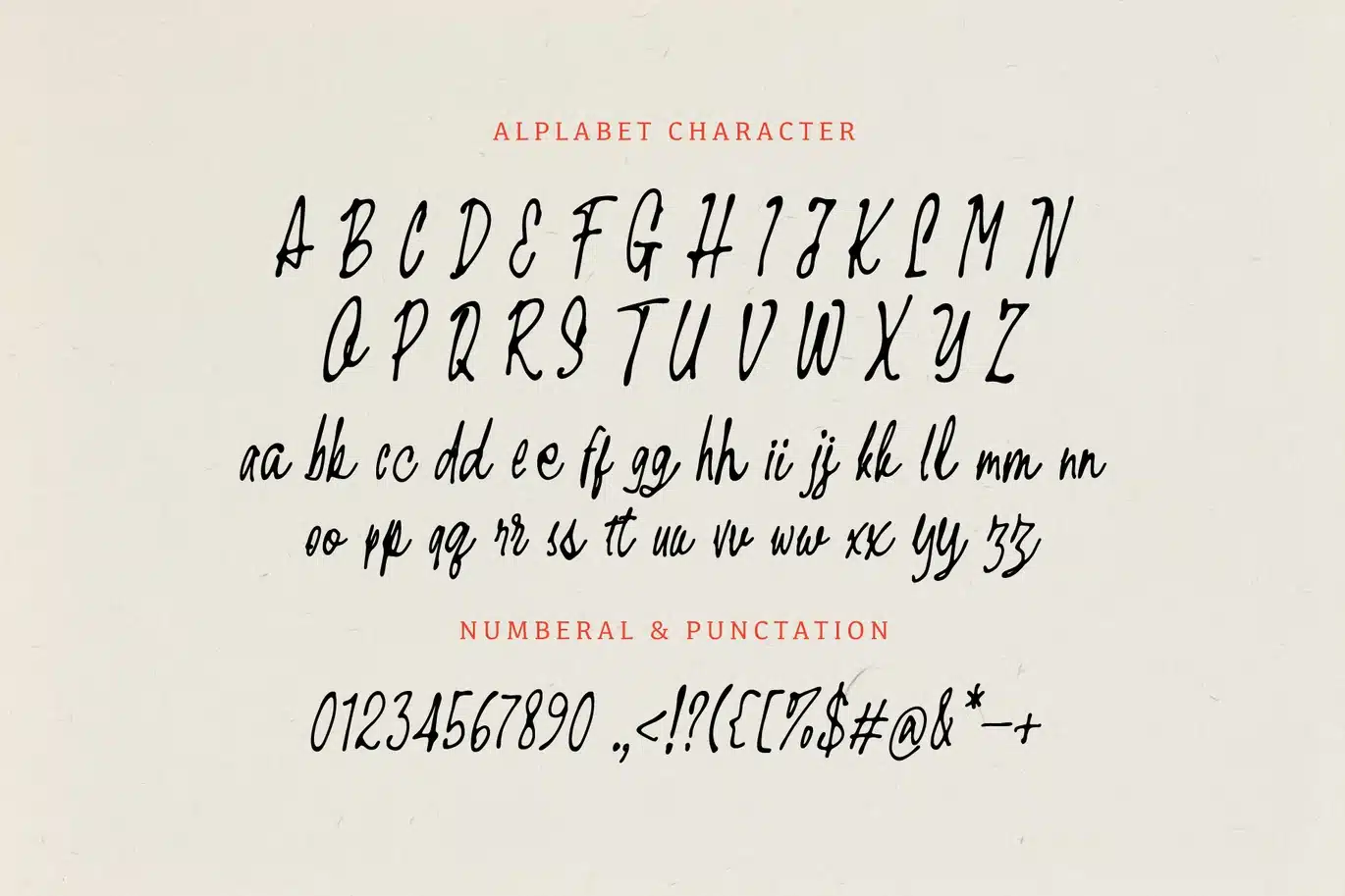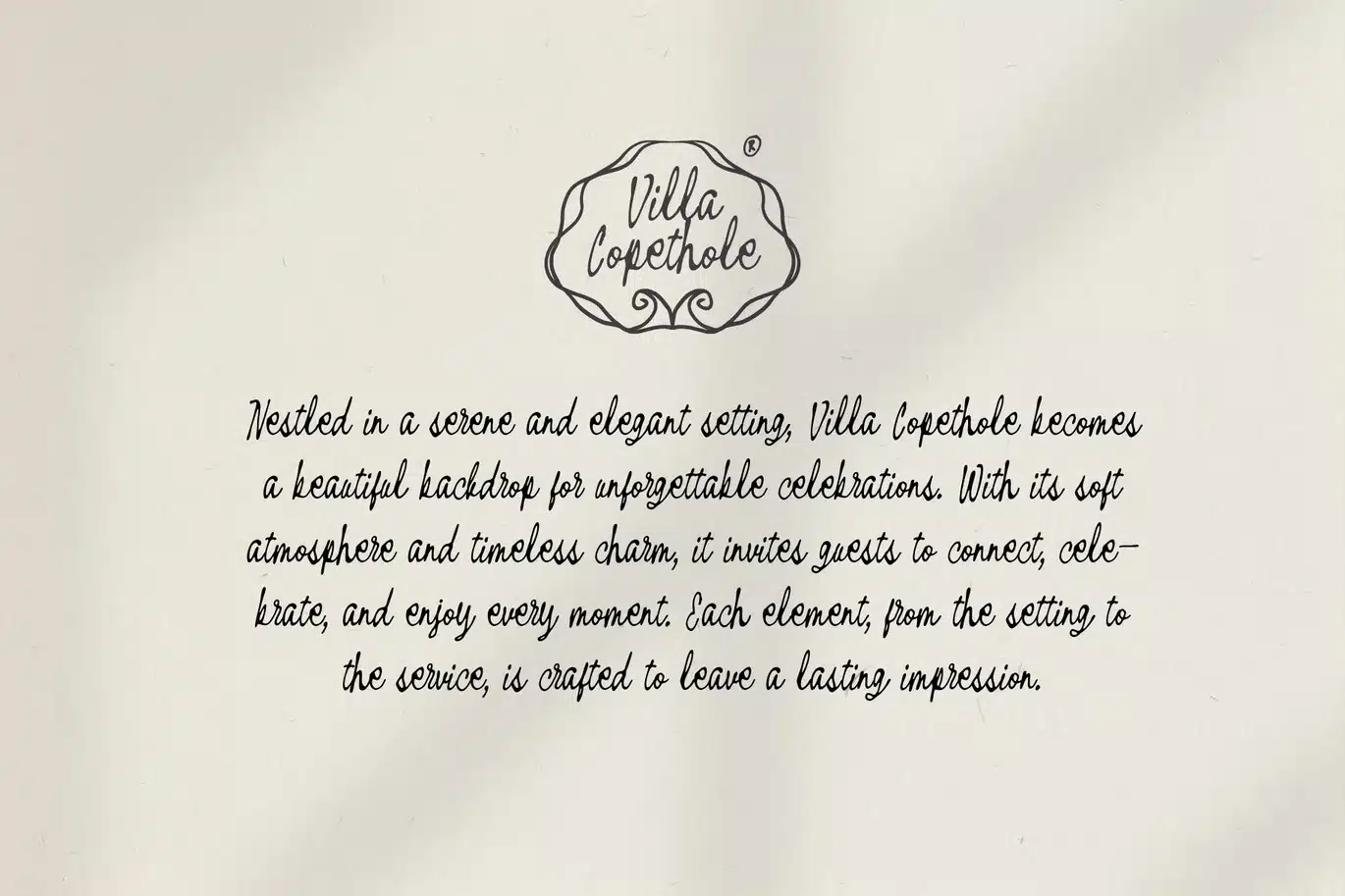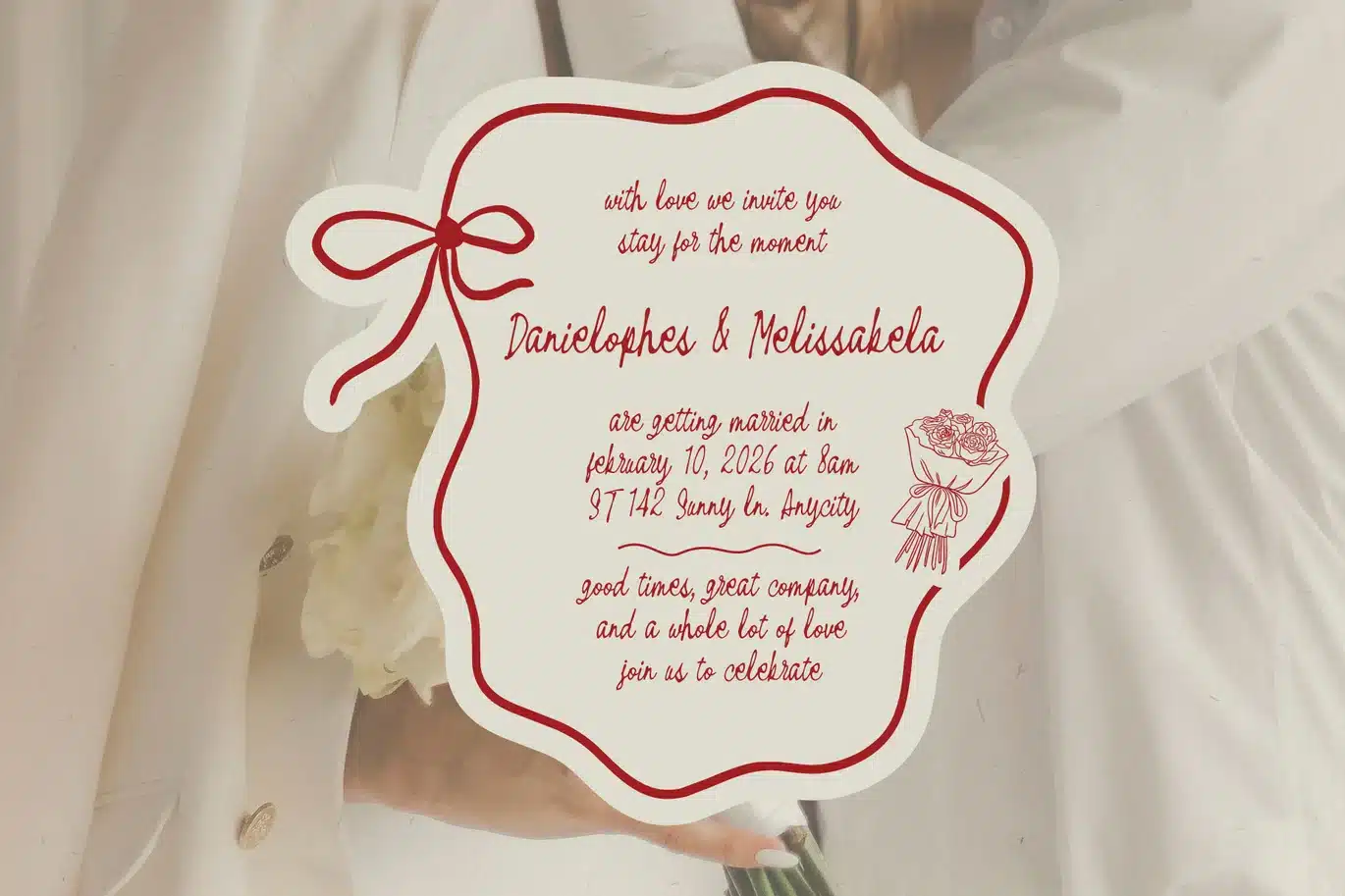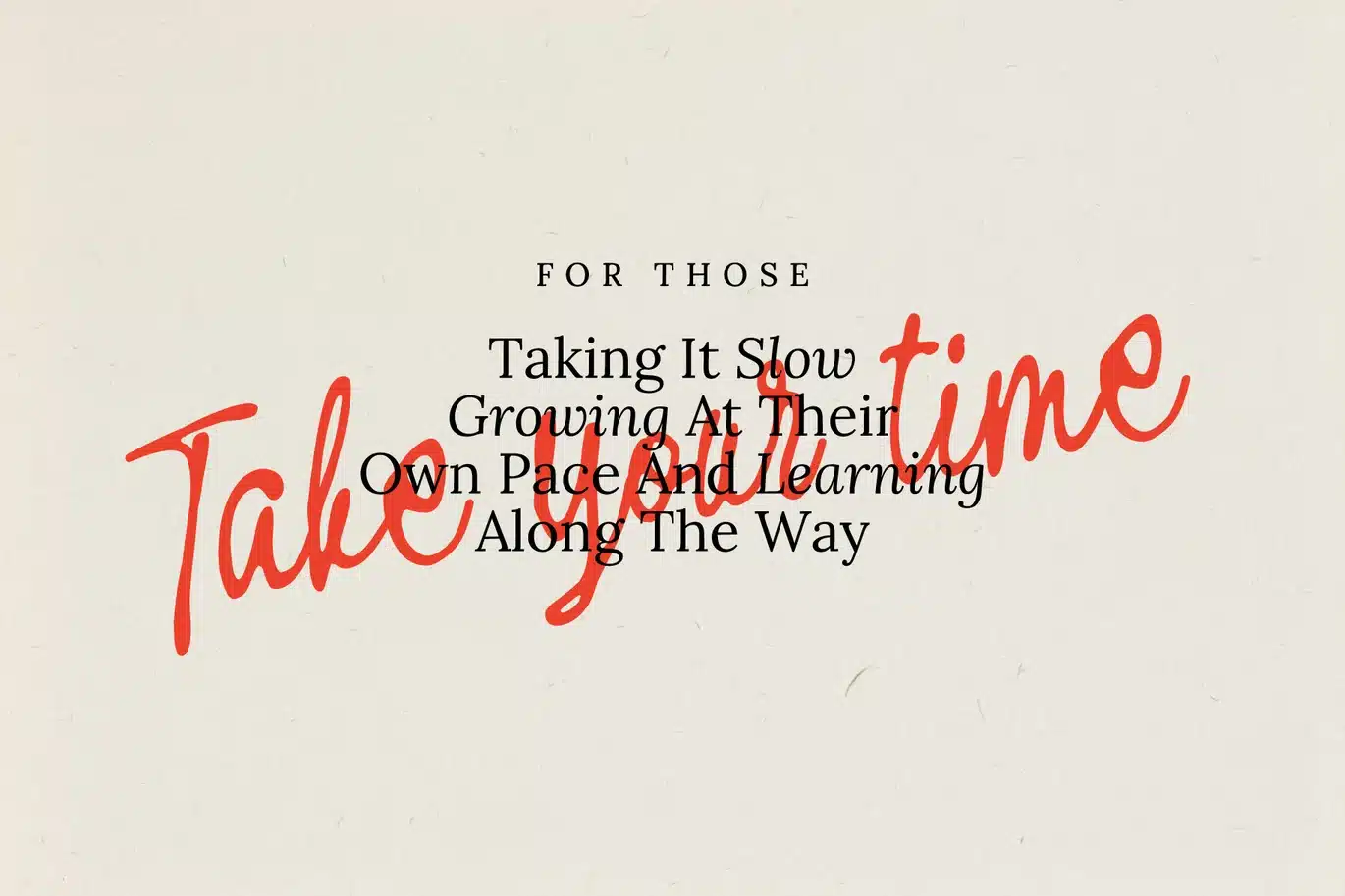
Simple Fine – Script Handwritten Font
Simple Fine is a smooth handwritten script font featuring elegant, flowing strokes and a natural signature-style appearance. Designed with effortless movement and expressive curves, this typeface delivers a clean yet personal touch, making it perfect for modern branding and stylish typography projects.
Note:Create elegant, effortless, and expressive designs with the natural flow of Simple Fine. Perfect for branding, logos, invitations, and social media visuals.